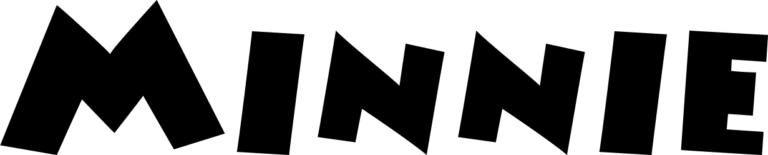
Fifties Movies Font
Grab your customer’s attention with this cartoon font. Fifties Movies font is coming in bold characters and can be used for posters, movies, flyers, etc. Bear in mind, that this case lacks lowercase letters. Download this freebie right now and it will add a casual touch to your text layout. Want you more? Dive deeper into our eye-catching inventory!